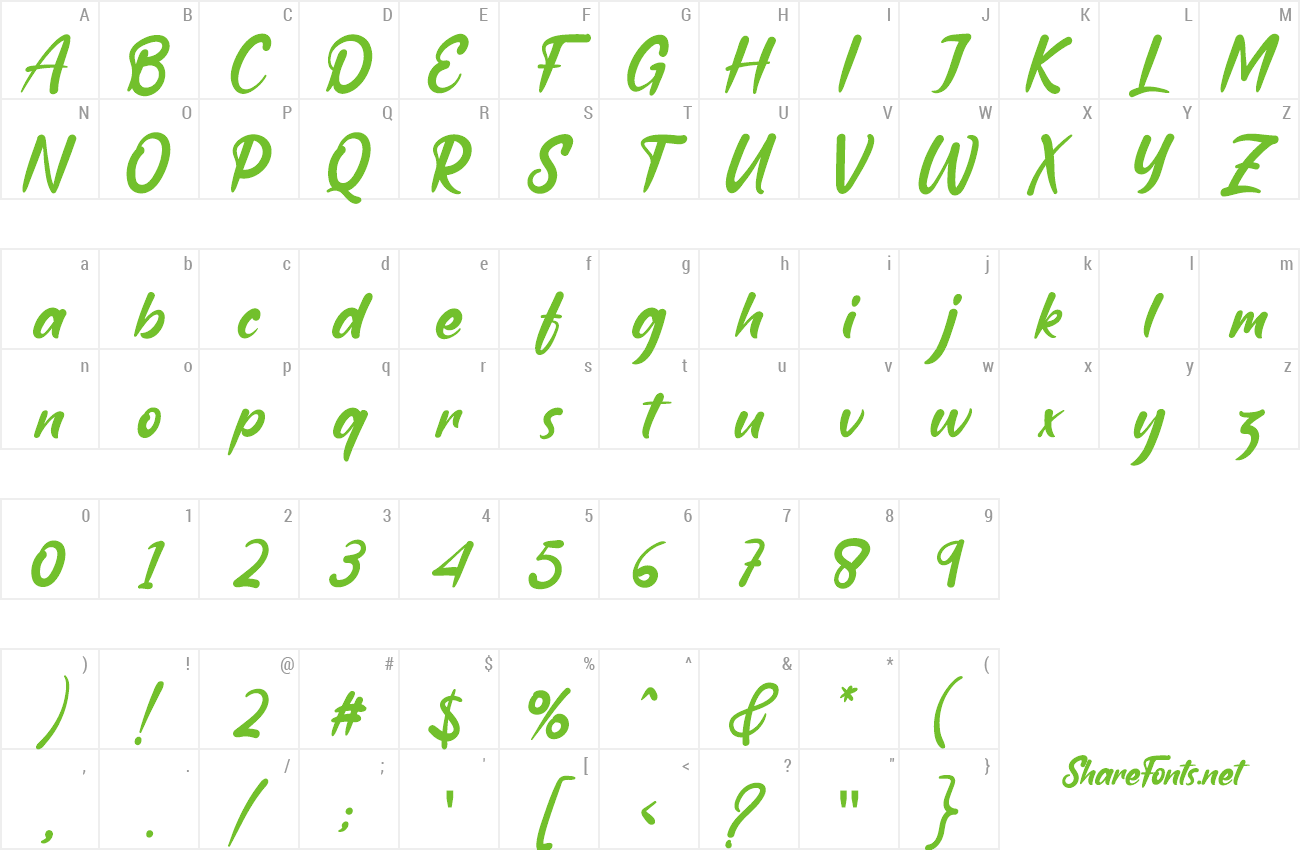
the latest style letters are perfect for wall displays, wedding invitations, social media post logos,
advertisements, product packaging, product designs, labels, photography, watermarks, invitations, stationery,
and any project that requires taste handwriting.
Warmth Winter